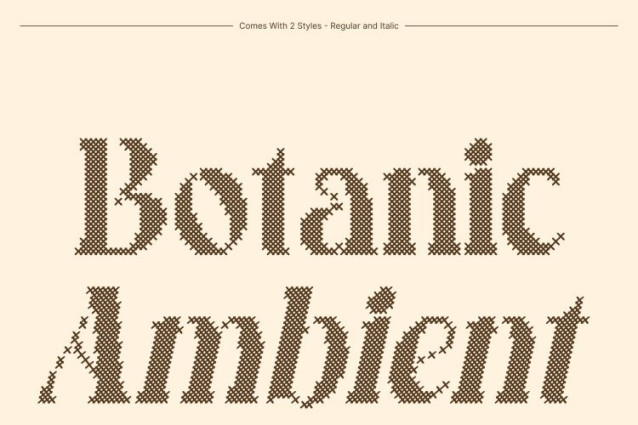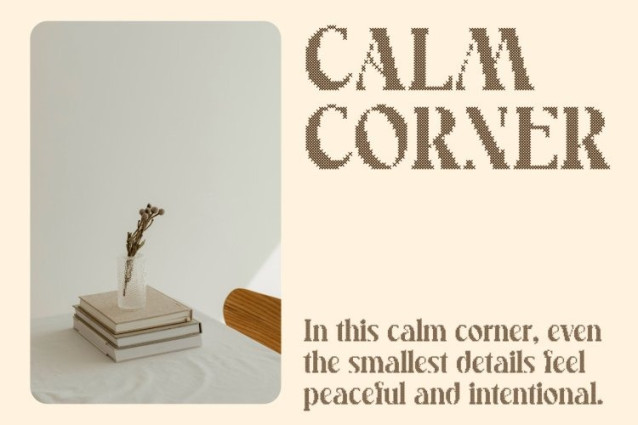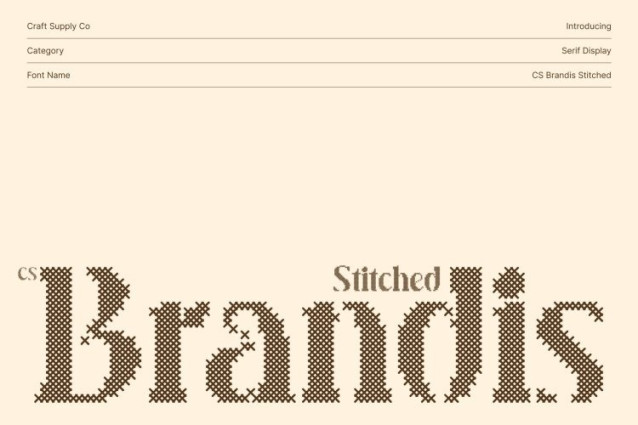
CS Brandis Stitched Font
CS Brandis Stitched Font is a modern serif font designed to express elegance through timeless proportions and contemporary refinement. Its carefully crafted letterforms balance classic serif foundations with a modern attitude, resulting in a sophisticated typeface that feels stylish and relevant. Enhanced with a stitched style inspired by thread sewn or embroidered on fabric, this version introduces a handcrafted texture that adds warmth and distinctive charm to its elegant structure.
High Contrast with Embossed Stitch Detail
The defining feature of this font lies in its dramatic high-contrast strokes, which create visual rhythm and refined sophistication across each character. A distinctive cross-shaped stitch pattern overlays the letterforms, producing an embossed, fabric-like texture that enhances depth and tactile appeal.
Contemporary Style with Expressive Sophistication
Combining playful modern shapes with refined serif construction, this font delivers a dynamic and graceful typographic flow. Its sharp transitions, elegant curves, and stitched texture create a balanced blend of contemporary expression and timeless beauty, making the font visually engaging yet professionally refined.
Perfect for Fashion and Editorial Design
This is ideal for fashion branding, posters, editorial layouts, magazine headlines, packaging, and luxury visual identities. Its fusion of high-contrast serif elegance and handcrafted stitched detailing enhances both bold headlines and stylish typography, delivering a modern aesthetic that feels fashionable, artistic, and confidently sophisticated.